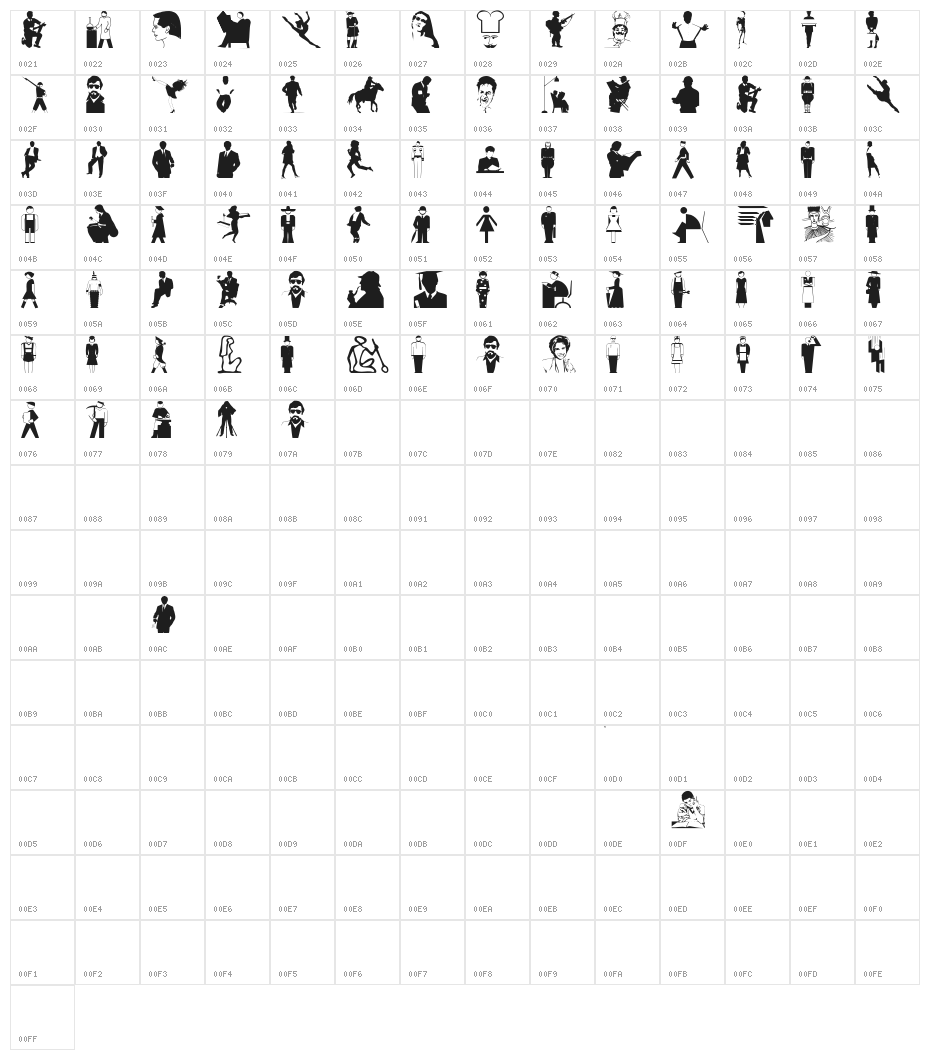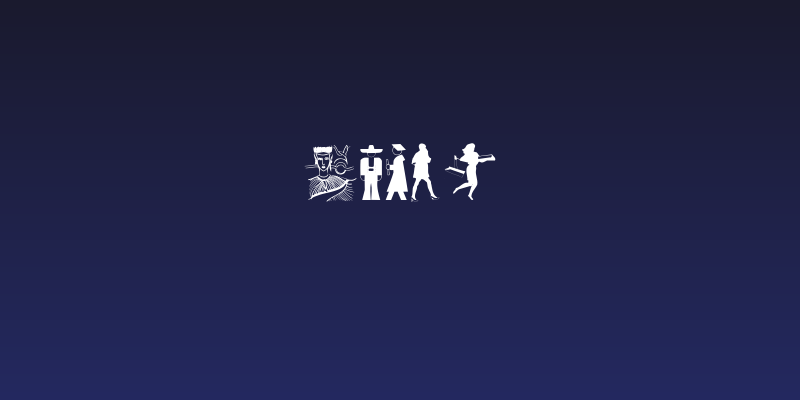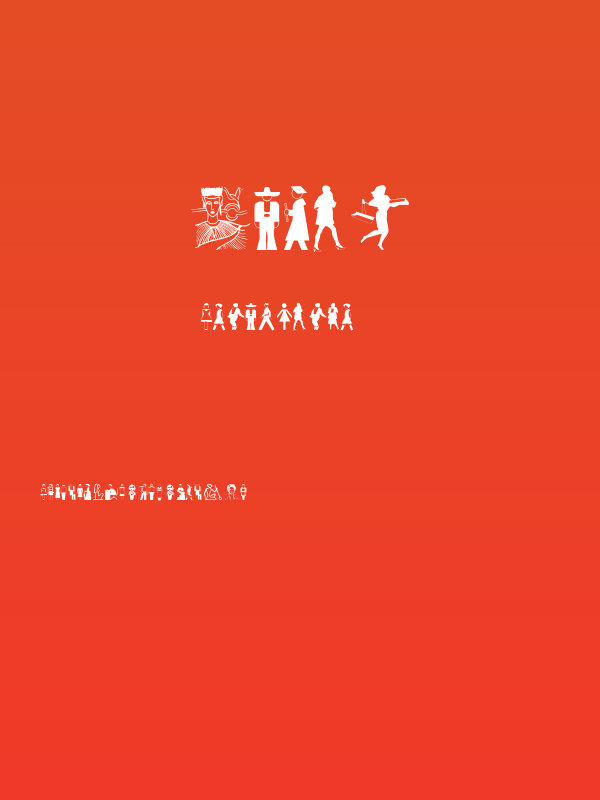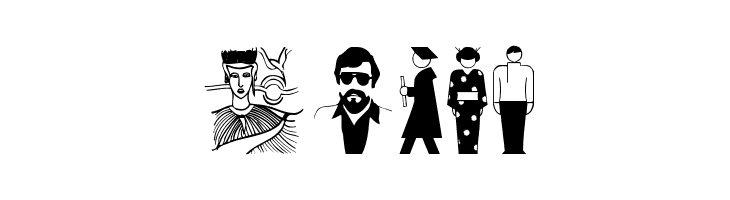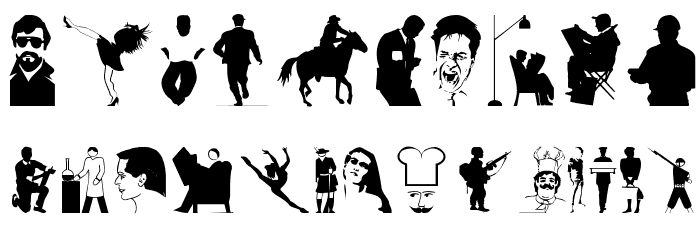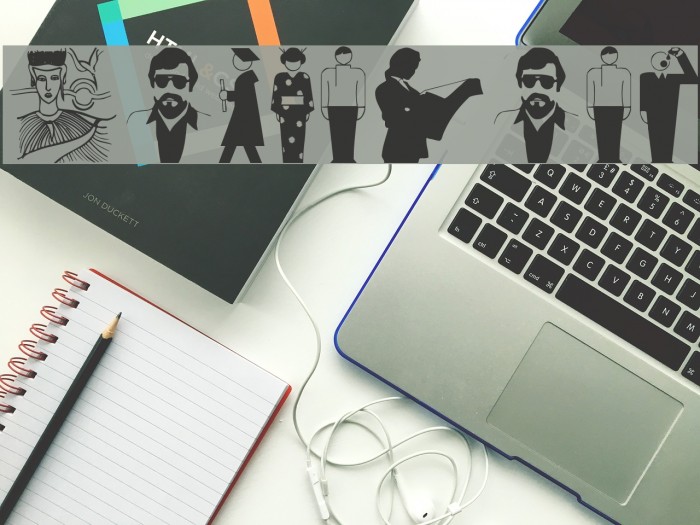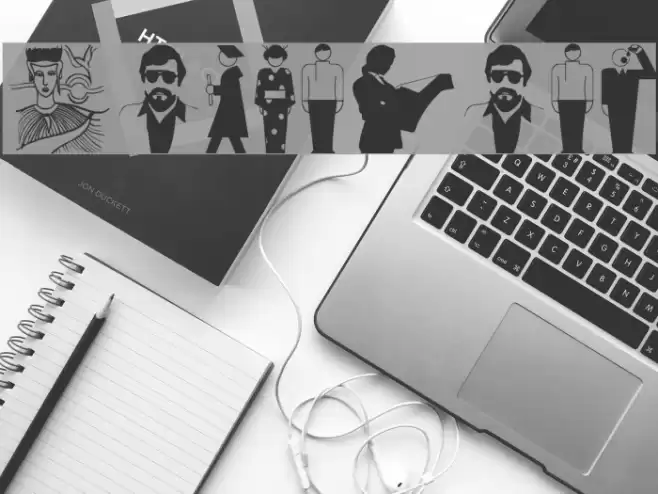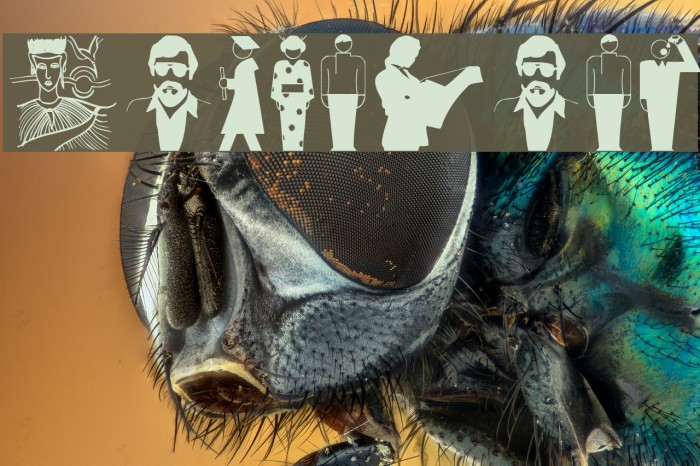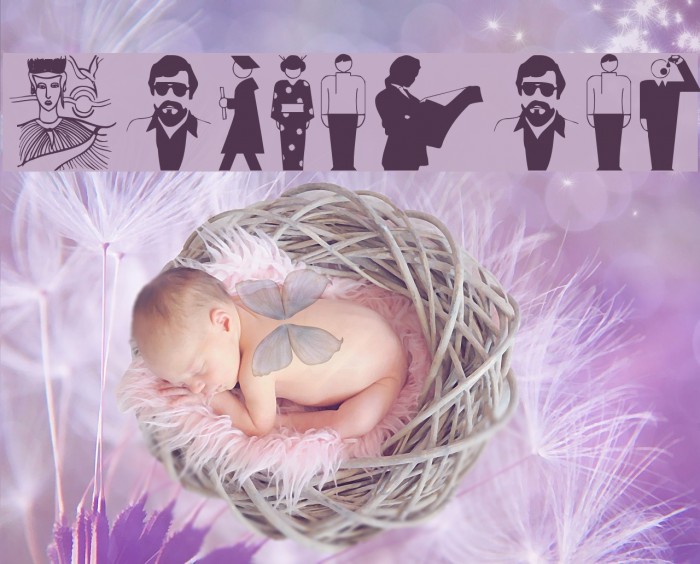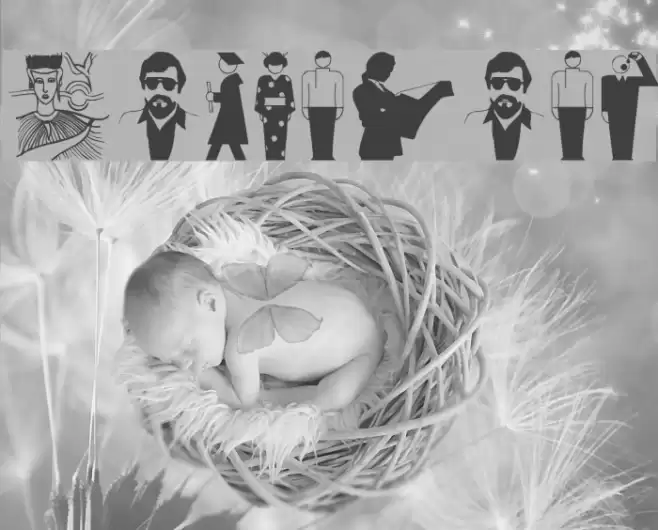
WoMan Font
WoMan Description
A highly decorative and illustrative font composed of stylized human figures and silhouettes forming each character, with a playful and artistic approach. The glyphs are unique, with each letter or symbol represented by a different person or scene, resulting in a visually engaging and unconventional typeface.
| Overall Style | Decorative, Artistic, Playful |
| Use Case | Headlines, Posters, Logos, Artistic projects |
| Proposed Projects | Posters, art projects, creative branding, editorial headlines, event invitations. |